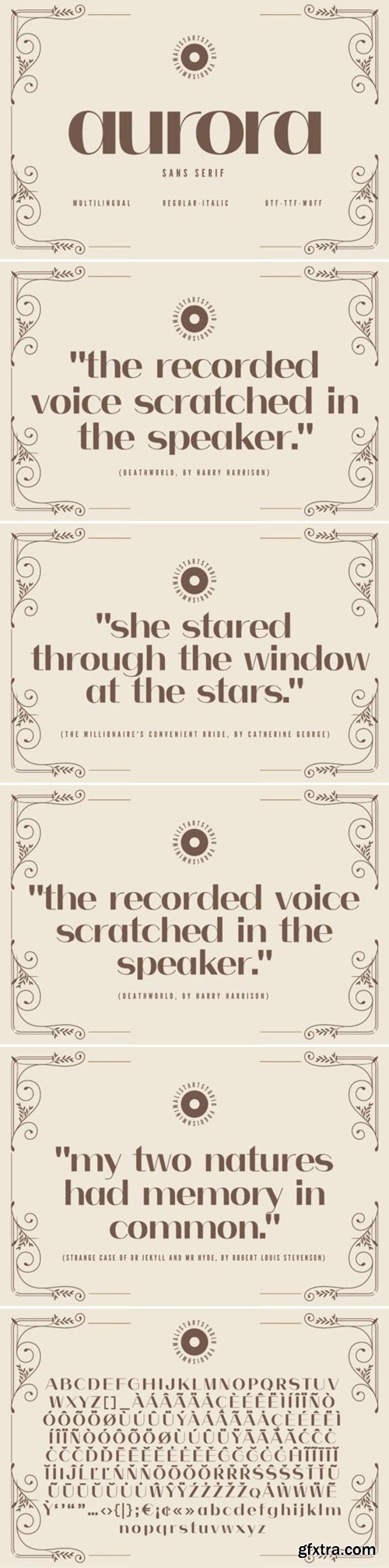
Aurora Font
Introducing Aurora, a font that is sure to leave a lasting impression. This elegant and minimalist sans-serif font is perfect for those who want a clean and sophisticated look for their designs. With its sleek lines and elegant curves, Aurora exudes a chic and refined aesthetic that is sure to elevate any project. Whether you’re working on branding, packaging, or any other design project, Aurora is the perfect font to bring a touch of class to your work.